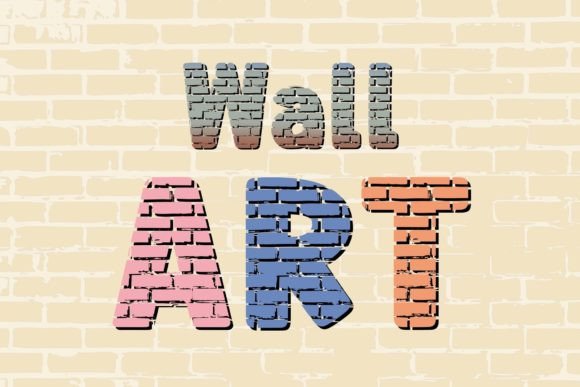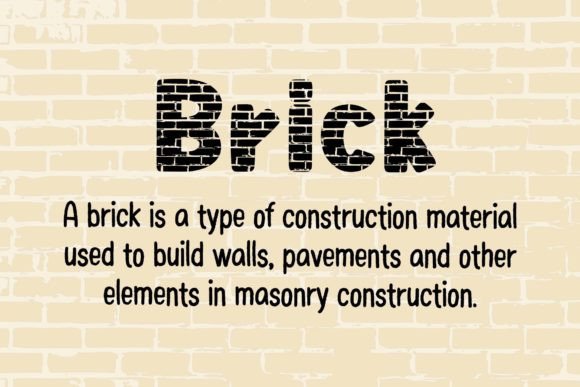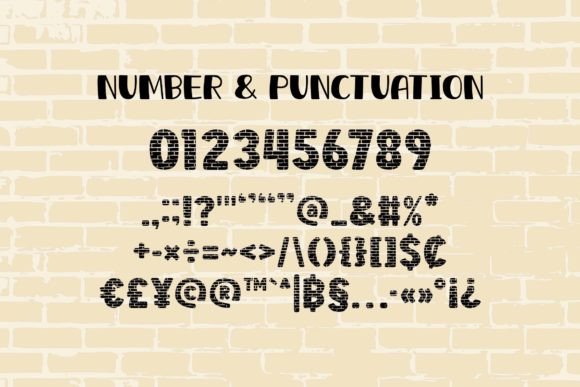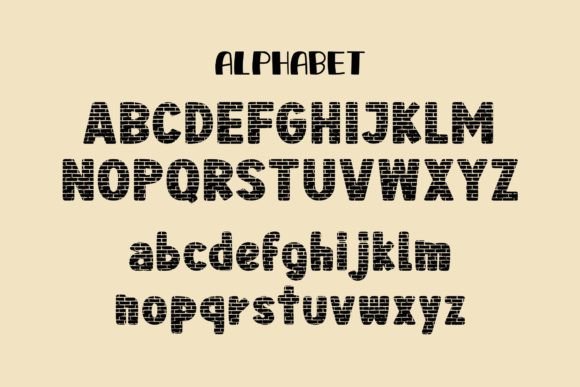
Introduction to Herta Font
Have you ever stumbled upon a font that instantly sparks creativity and makes you want to dive into a new project? For designers, that moment is priceless. It’s the thrill of discovering a design resource that can elevate your work and give it that extra oomph. And for those who have been searching for the perfect font to bring their creative vision to life, we’ve got some exciting news – meet Herta Font, the adorable brick-styled typeface that’s about to become your new best friend!
With its high-quality design and transparent background, Herta Font is perfect for a wide range of creative projects, from marketing materials to social media posts. Its unique, cute characters make it an ideal choice for construction companies, kids’ educational materials, and even lifestyle brands looking for a fun, playful touch.
Key Features of Herta Font
- High-quality design resource suitable for creative projects, offering a unique and elegant touch.
- Features a transparent background, allowing for seamless integration with different design elements.
- Designed to provide a high level of detail and precision, making it an excellent choice for professional designs.
- Comes in a single weight, ideal for projects where a clean and simple font is required.
Honest Review: Herta Font
I recently came across the Herta Font and I must say it’s a fantastic addition to any designer’s toolkit. As a design enthusiast, I’m always on the lookout for high-quality resources that can help bring my creative projects to life.
What works well: ✨ The Herta Font has a unique and elegant style that’s perfect for a variety of designs, from logos to typography-based artworks. Its transparent background makes it incredibly versatile and easy to work with. I’ve used it in a few projects already, and the results have been fantastic.
Limitations: ⚠️ While the Herta Font is a great resource, it’s not suitable for all types of projects. For example, it may not be the best choice for bold, eye-catching headlines. Additionally, the font family is relatively small, so you may need to experiment with different combinations to find the perfect fit.
Overall, I’m really impressed with the Herta Font and would highly recommend it to designers looking for a high-quality, creative resource. With a little experimentation, you can achieve some truly amazing results.
Tips for Getting the Most Out of Herta Font
Experiment with different font sizes and styles to achieve a unique look. Use the font with a transparent background to create a visually appealing design. Combine the Herta Font with other design elements, such as images and graphics, to create a cohesive and high-quality design.
The Herta Font is suitable for a wide range of creative projects, including business cards, brochures, posters, and social media graphics. It’s also a great choice for creating presentations, documents, and other written content. With its high-quality design and transparent background option, the Herta Font is a versatile and valuable design resource.